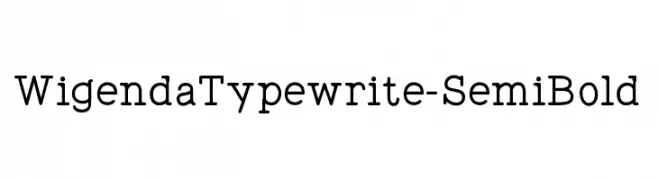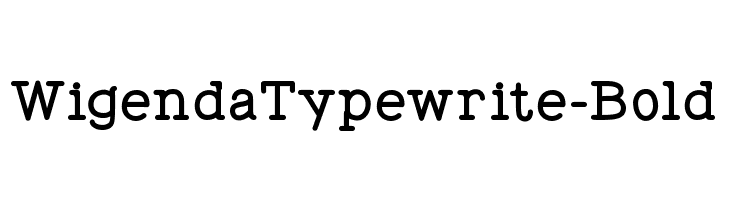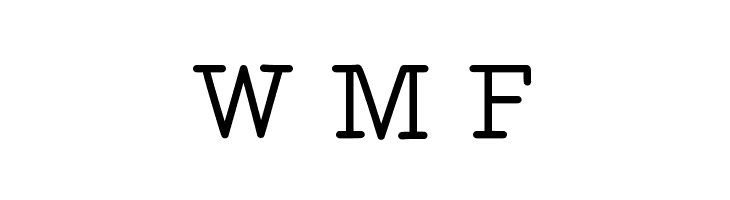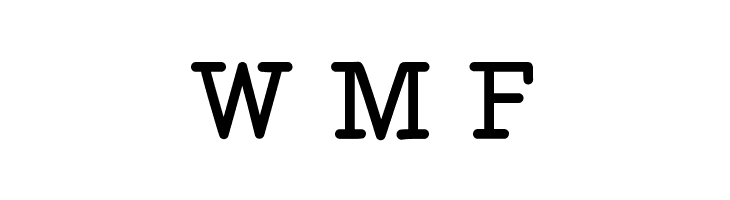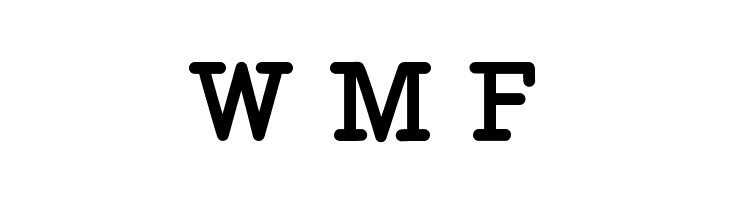
A modern take on classic typewriter fonts with monospaced characters and a balanced design.
A bold, monospaced typewriter-style font with a vintage charm.
A monospaced typewriter-style font with a classic, vintage appeal.
A bold, vintage typewriter-style font with rounded serifs and monospaced characters.